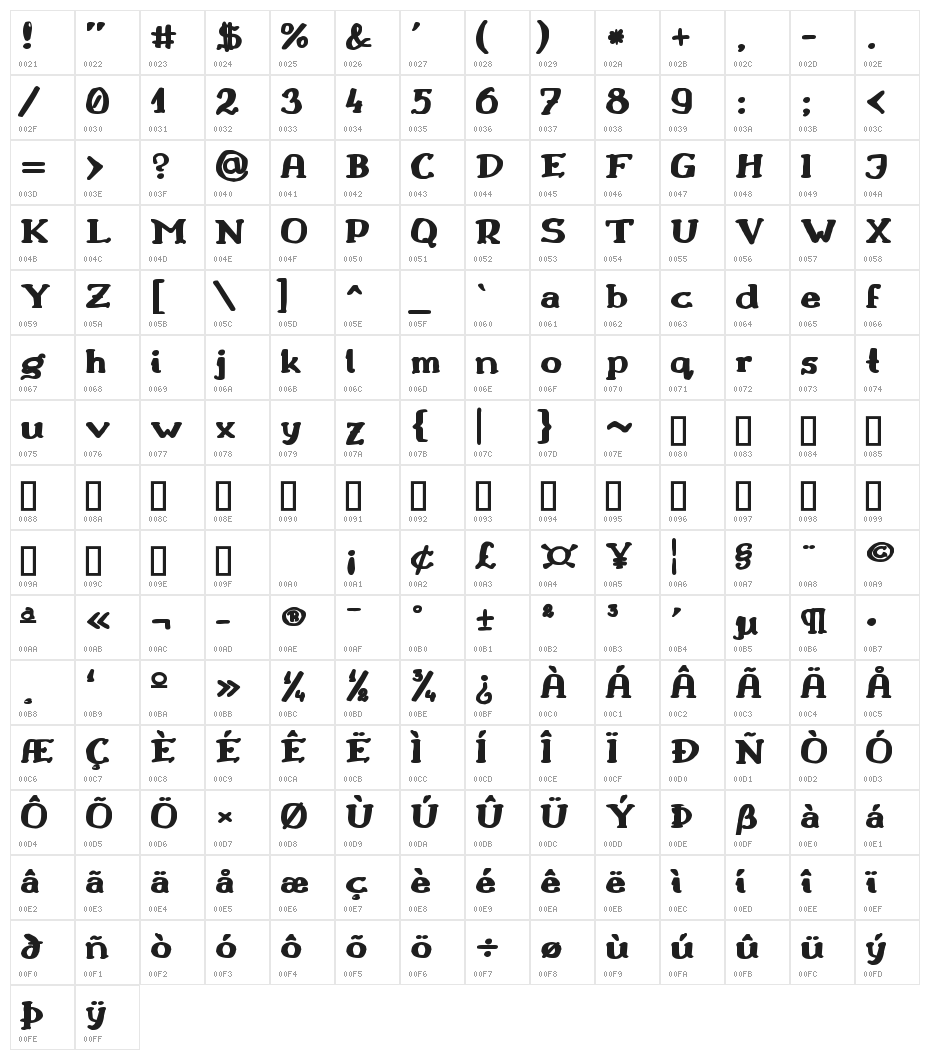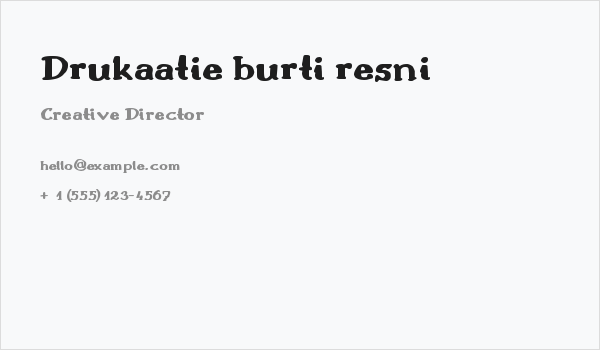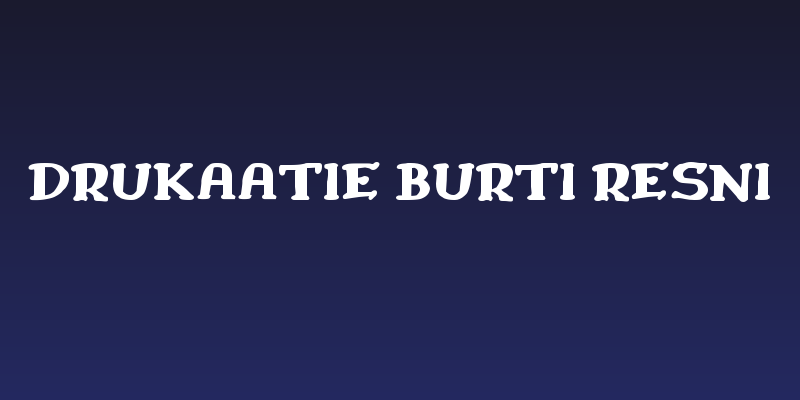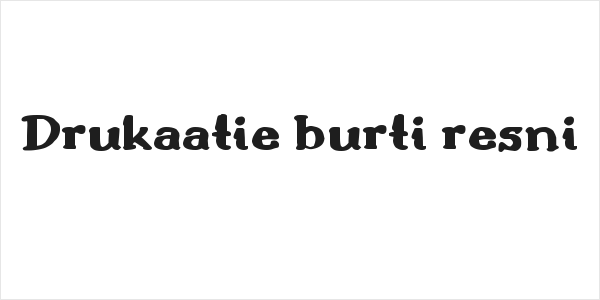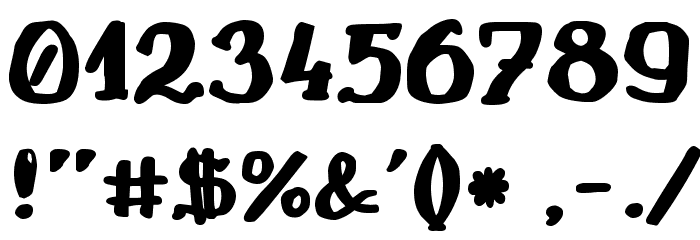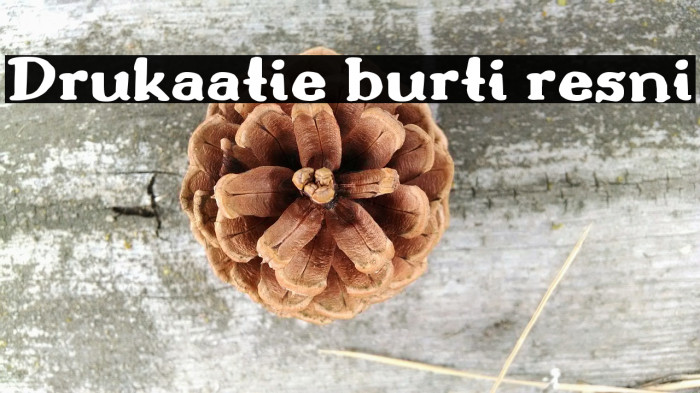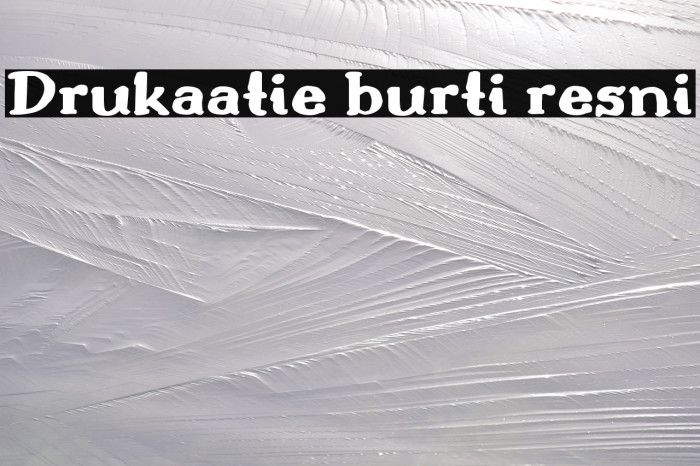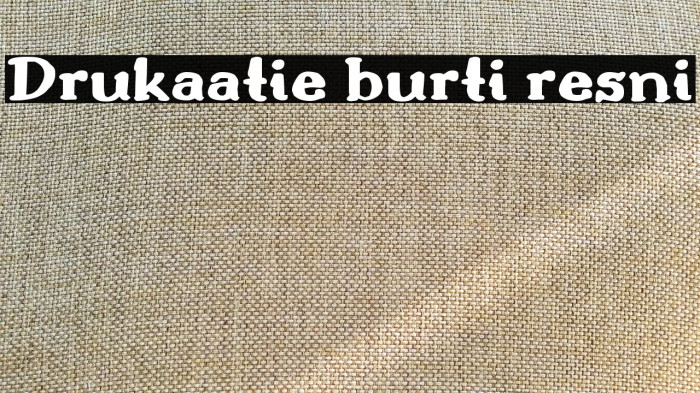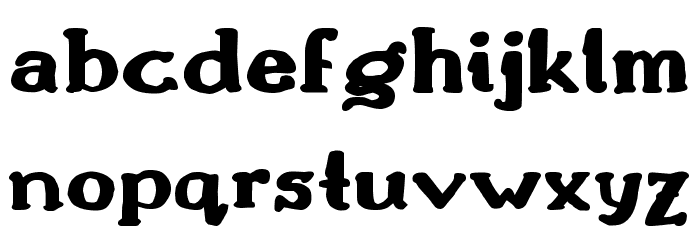
Drukaatie burti resni Font
Drukaatie burti resni Description
This font features a bold and playful style with a hand-drawn appearance. The characters are thick and rounded, giving them a friendly and approachable feel. The uppercase and lowercase letters maintain a consistent weight, while the numbers and special characters are equally bold and expressive. The font's unique charm lies in its slightly irregular shapes, which add a touch of whimsy and personality. It's well-suited for projects that require a fun and informal tone, such as children's books, posters, or creative branding materials.
| Overall Style | Playful, Whimsical |
| Proposed Projects | Ideal for children's books, playful posters, creative branding, and informal invitations. |